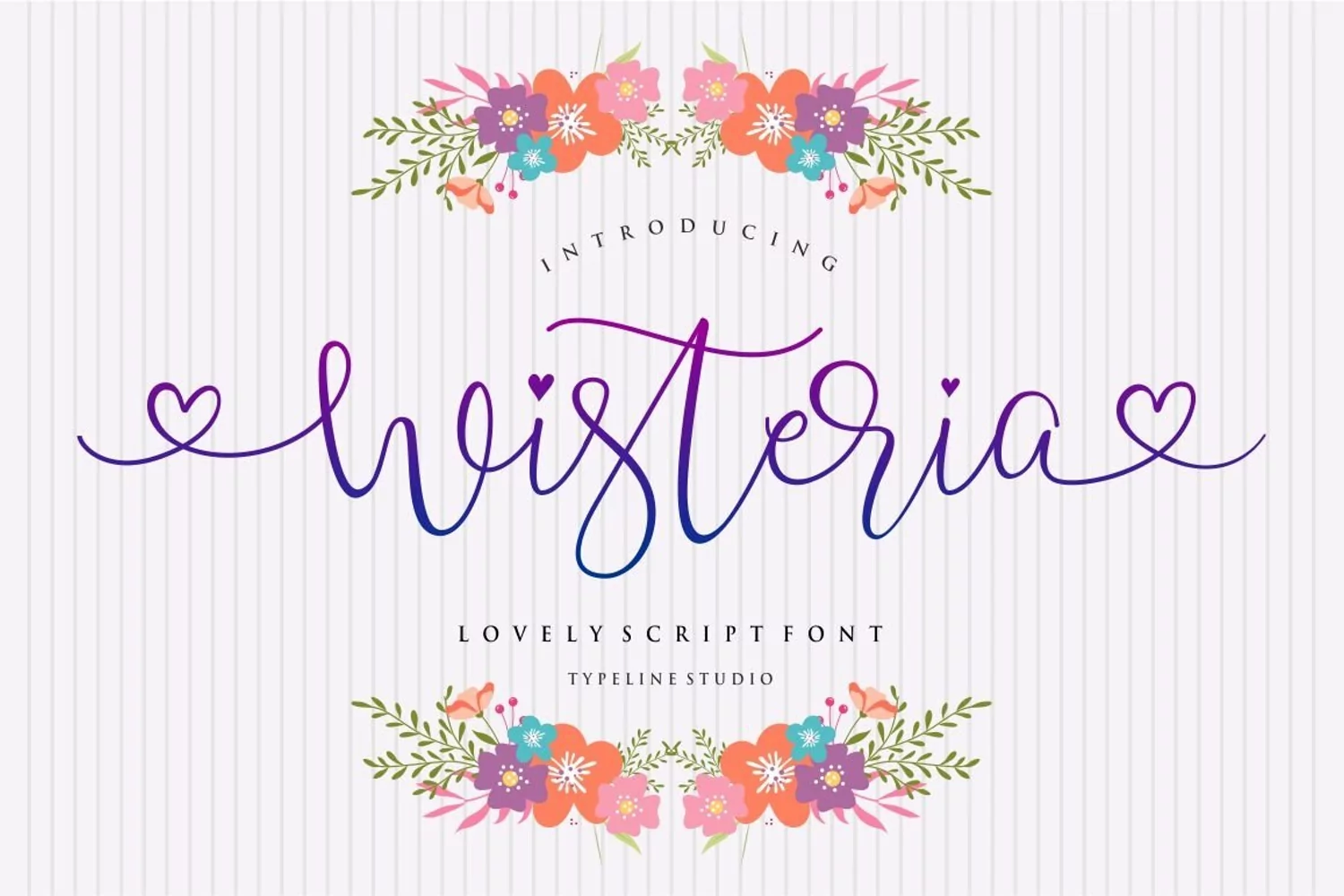
Wisteria Script Font
Wisteria Lovely Script Font 50% Off Intro SALEWisteria is a handwritten font made with love, a character that is very beautiful and varied, has a decorative impression of classic love with a modern touch, is designed with a full romantic feeling with the selection of brushes that are appropriate so as to present a stylish character font. Wisteria is interesting as a smooth, clean, feminine, sensual, glamorous, simple and very readable typeface, because there are a lot of ligature, initial and final letters that form the heart.